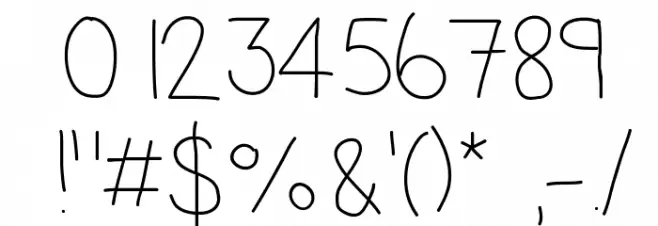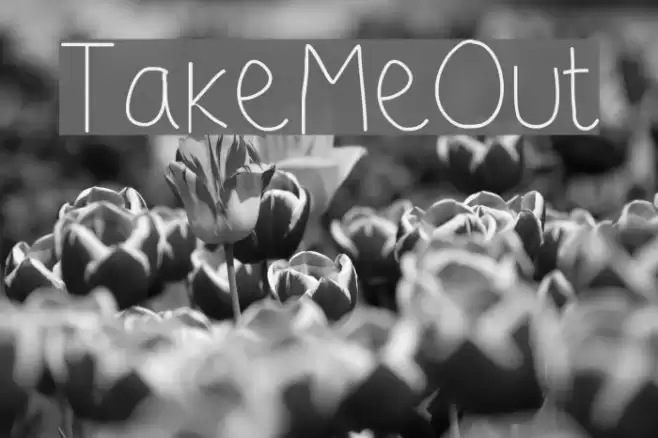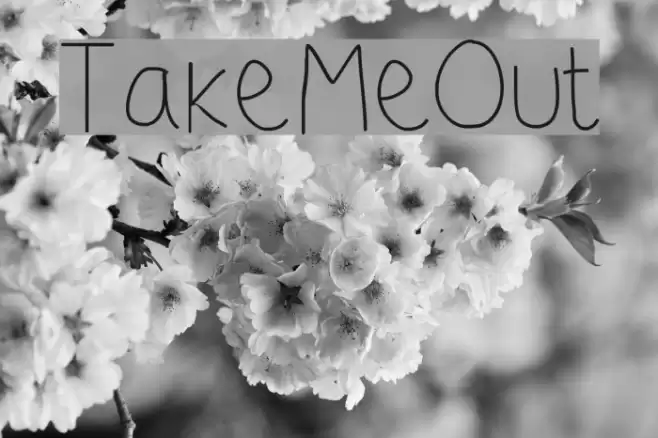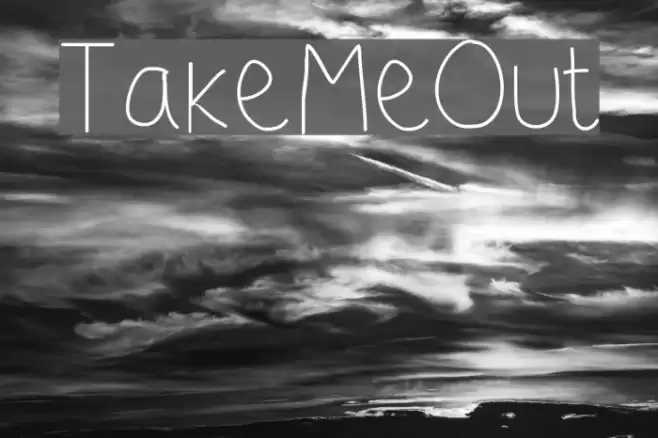
TakeMeOut Font
TakeMeOut Description
This font features a playful and whimsical handwritten style, characterized by its thin, elongated strokes and slightly irregular letterforms. The uppercase and lowercase letters maintain a consistent height, giving the font a cohesive appearance. The numerals and special characters are designed with the same playful aesthetic, making them blend seamlessly with the alphabet. The overall look is casual and friendly, suitable for projects that require a personal touch. The spacing between characters is normal, ensuring readability while maintaining the font's unique charm.
| Proposed Projects | Ideal for greeting cards, children's books, casual invitations, and playful branding. |